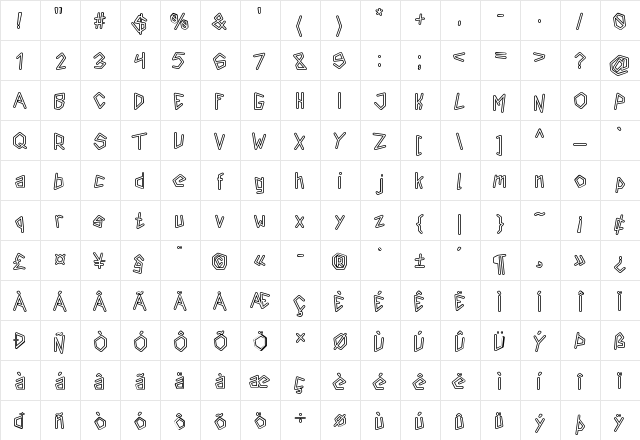
Insurgence Outline Regular
Design Context for Insurgence Outline Typeface
Insurgence Outline is built around its visual character rather than neutral utility — its distinctive forms are designed to make an impression at display sizes.
Font Pairing: Pair with a clean neutral sans-serif for body copy to let Insurgence Outline's character lead without overwhelming the composition.
Pro Tip: Use Insurgence Outline exclusively at display sizes — it was designed to be seen, not read at length. Let a neutral companion handle body copy.